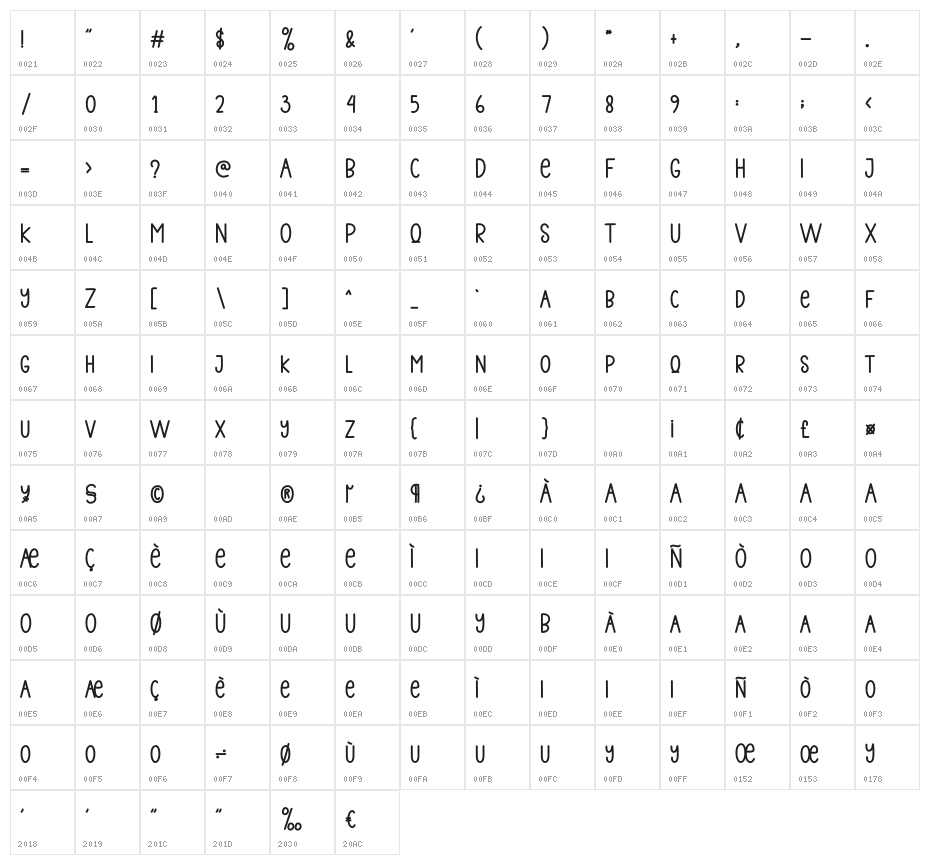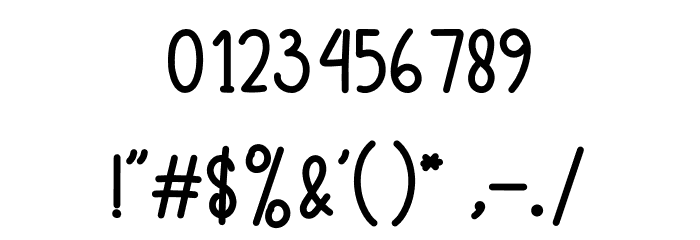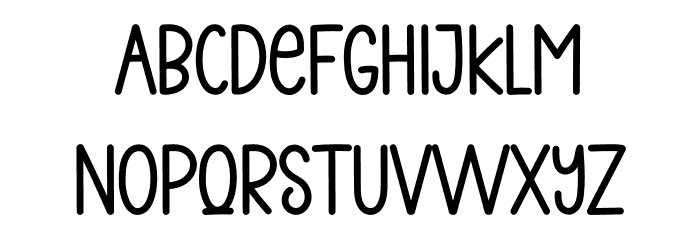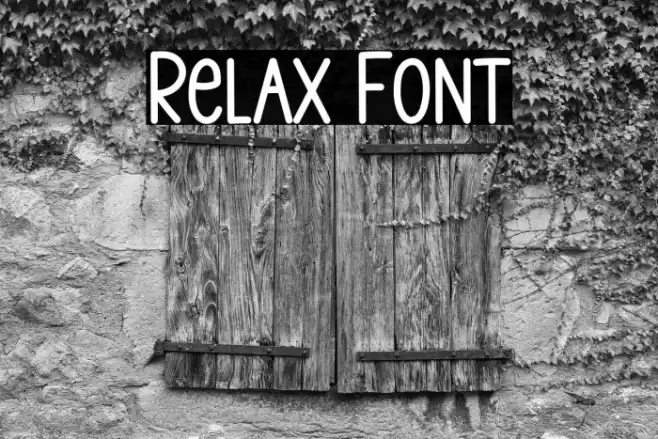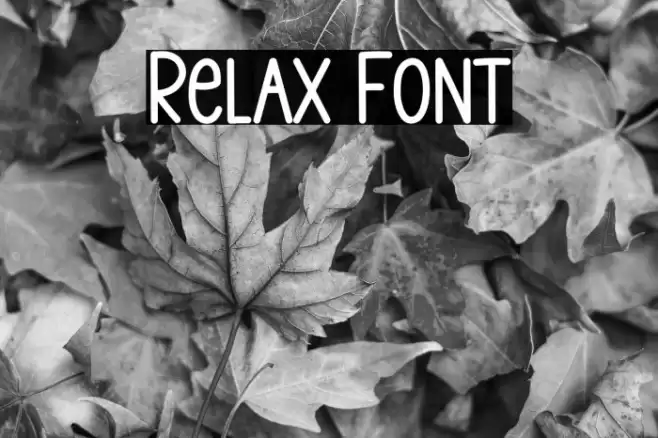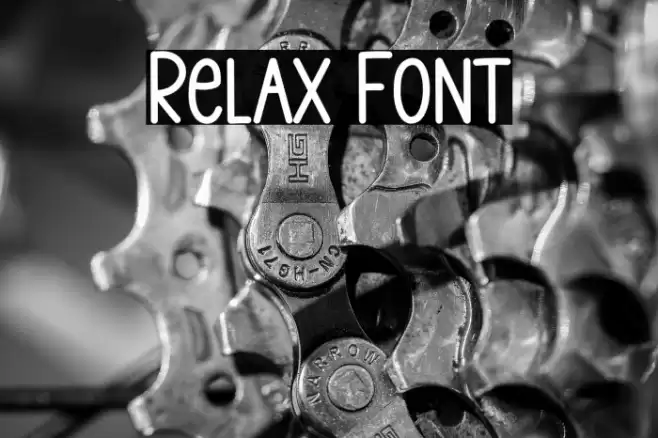
Relax Font
This playful and rounded font features smooth curves and a friendly appearance, making it ideal for casual and informal designs. The letters are evenly spaced with a consistent stroke width, giving it a clean and approachable look. Its simplicity and readability make it versatile for various applications. The font includes a full set of uppercase and lowercase letters, numbers, and a range of special characters, ensuring comprehensive usability. Its design is modern yet retains a touch of whimsy, suitable for projects that require a light-hearted and engaging typeface.
| Use Case | Headlines, Logos, Informal Text |
| Proposed Projects | Ideal for children's books, playful branding, casual invitations, and social media graphics. |